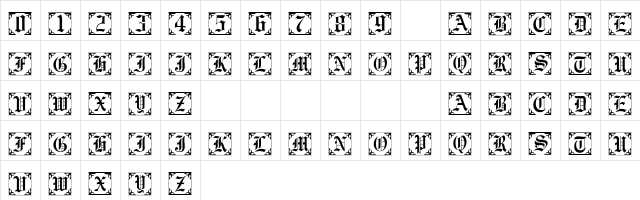
Design Context for 101! Antique Alpha II
101! Antique Alpha II wears its vintage influences proudly, with letterforms that recall mid-century signage, classic packaging, and nostalgia-driven design.
Font Pairing: Combine 101! Antique Alpha II with a simple slab or neutral sans - period-accurate companions reinforce the vintage feel without competing for attention.
Pro Tip: Lean into 101! Antique Alpha II's period character by pairing it with aged paper textures, muted colour palettes, and vintage illustration styles.